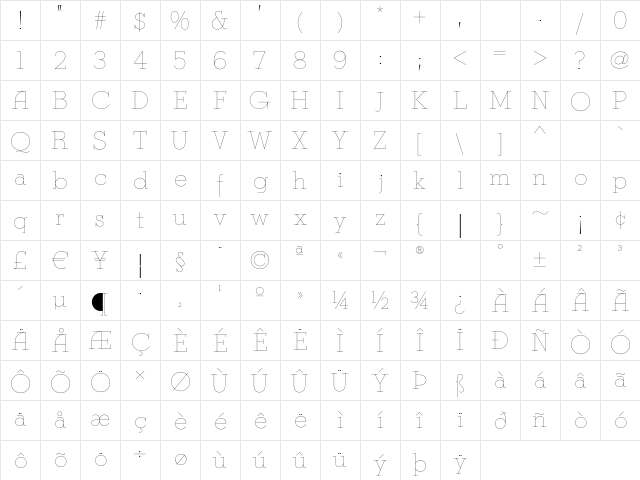
Gatlinburg Gossamer NF Regular
| Foundry | Nick's Fonts |
| Designer | Nick Curtis |
Design Context for Gatlinburg Gossamer NF Typeface
Gatlinburg Gossamer NF is a composed and adaptable typeface that performs quietly and consistently across a wide range of design contexts.